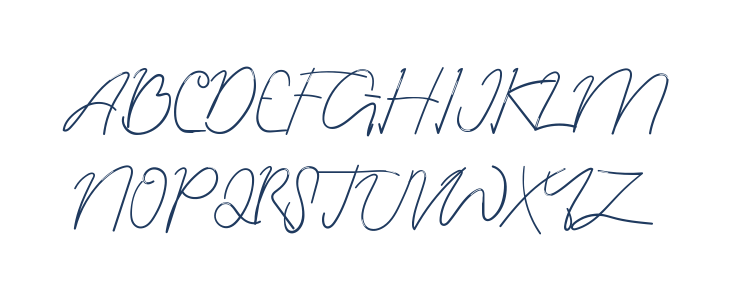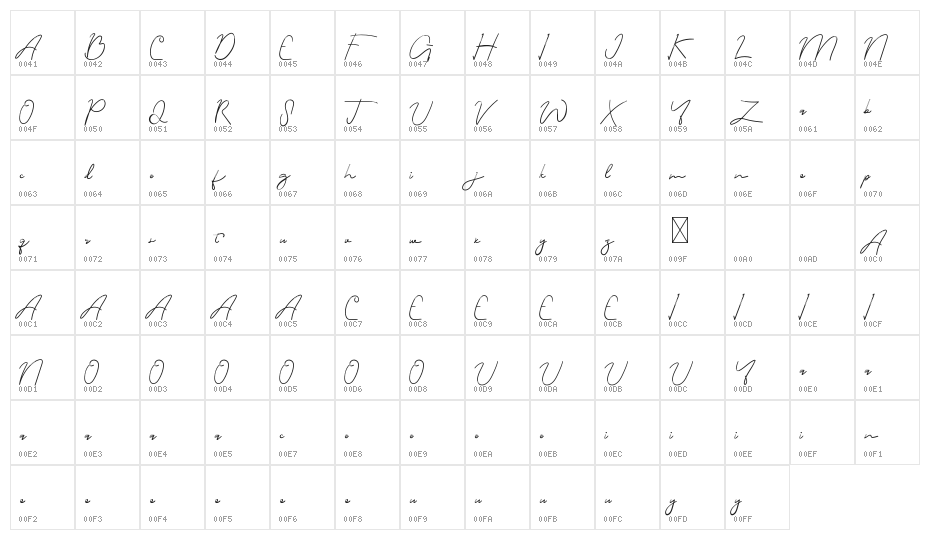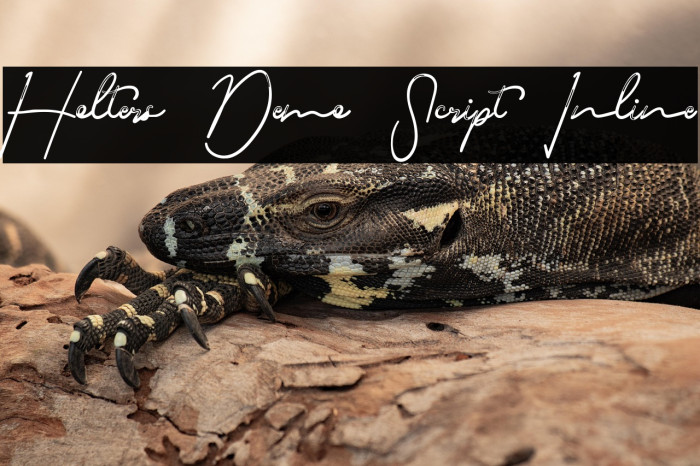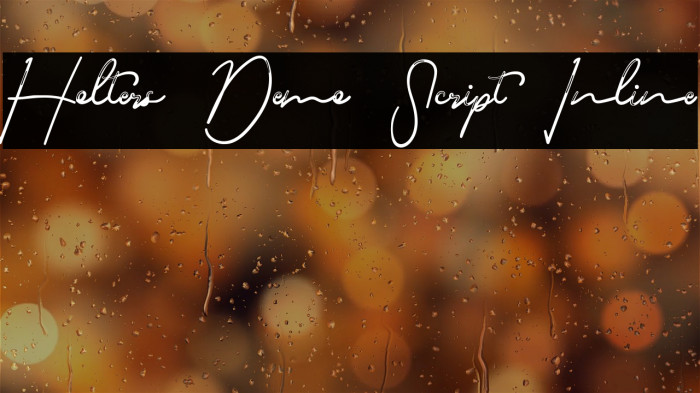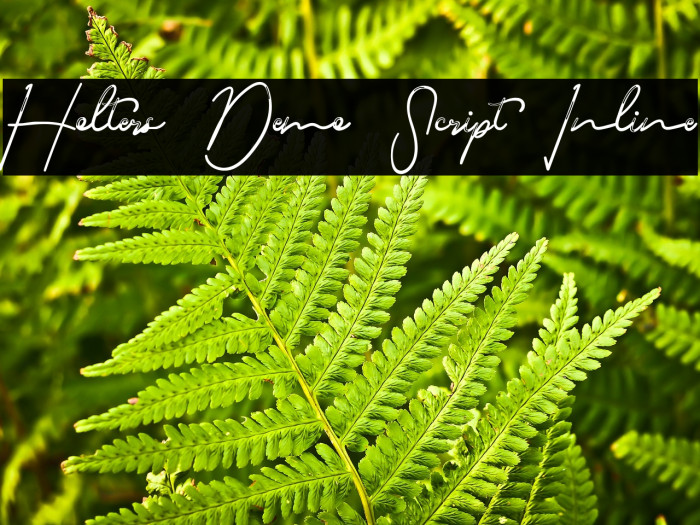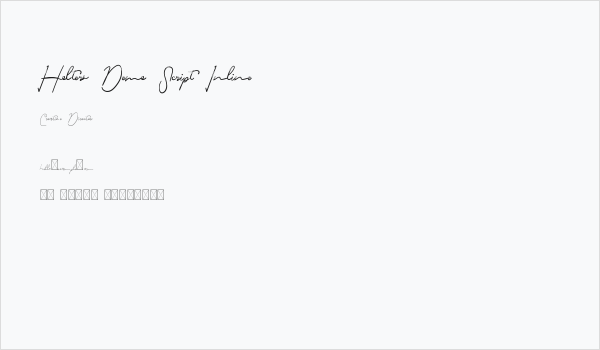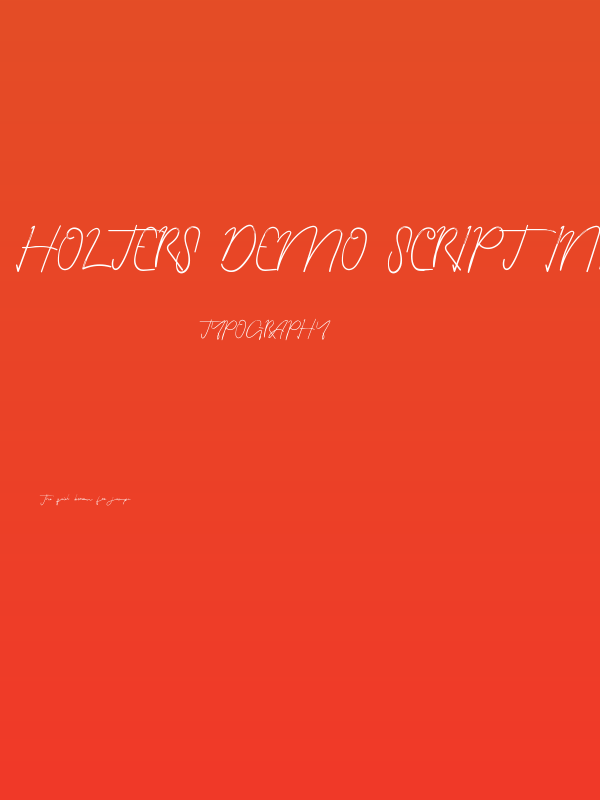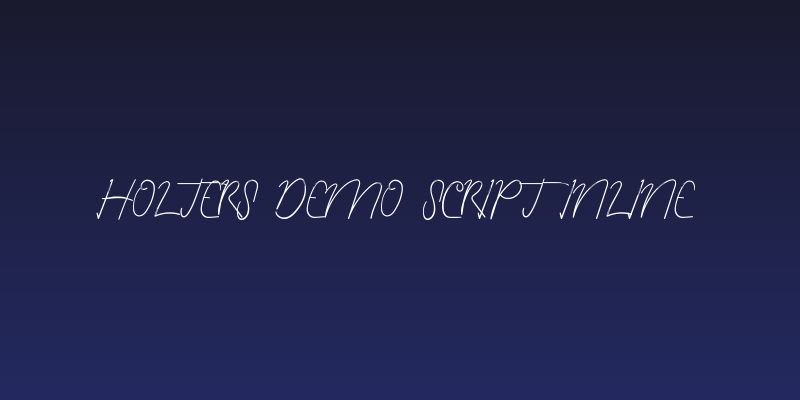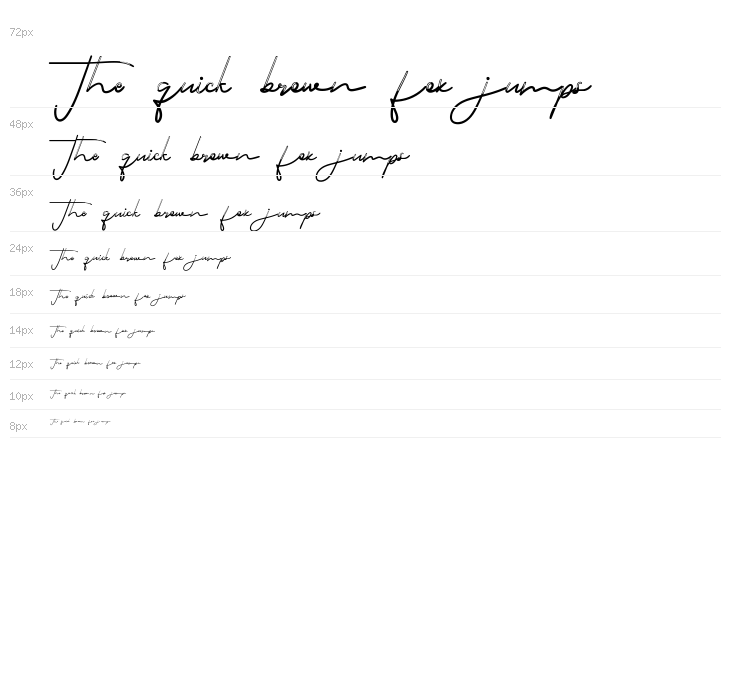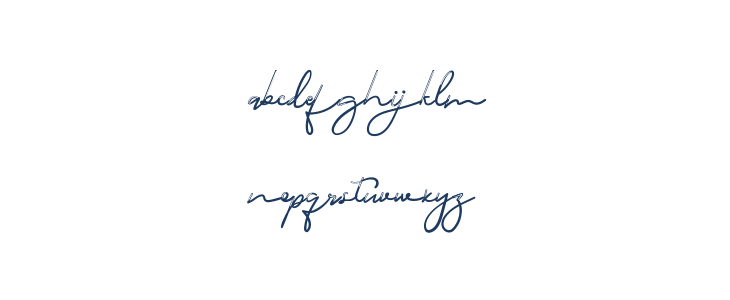
Holters Demo Script Inline Font
Holters Demo Script Inline Description
Elegant, flowing script font with thin, monoline strokes and a handwritten, cursive appearance. Letters are connected or closely spaced, with high ascenders and deep descenders, giving a dynamic and expressive look.
| Overall Style | Decorative, Elegant, Handwritten |
| Use Case | Logos, Invitations, Decorative headlines |
| Proposed Projects | Wedding invitations, personal branding, greeting cards, elegant packaging, artistic quotes. |